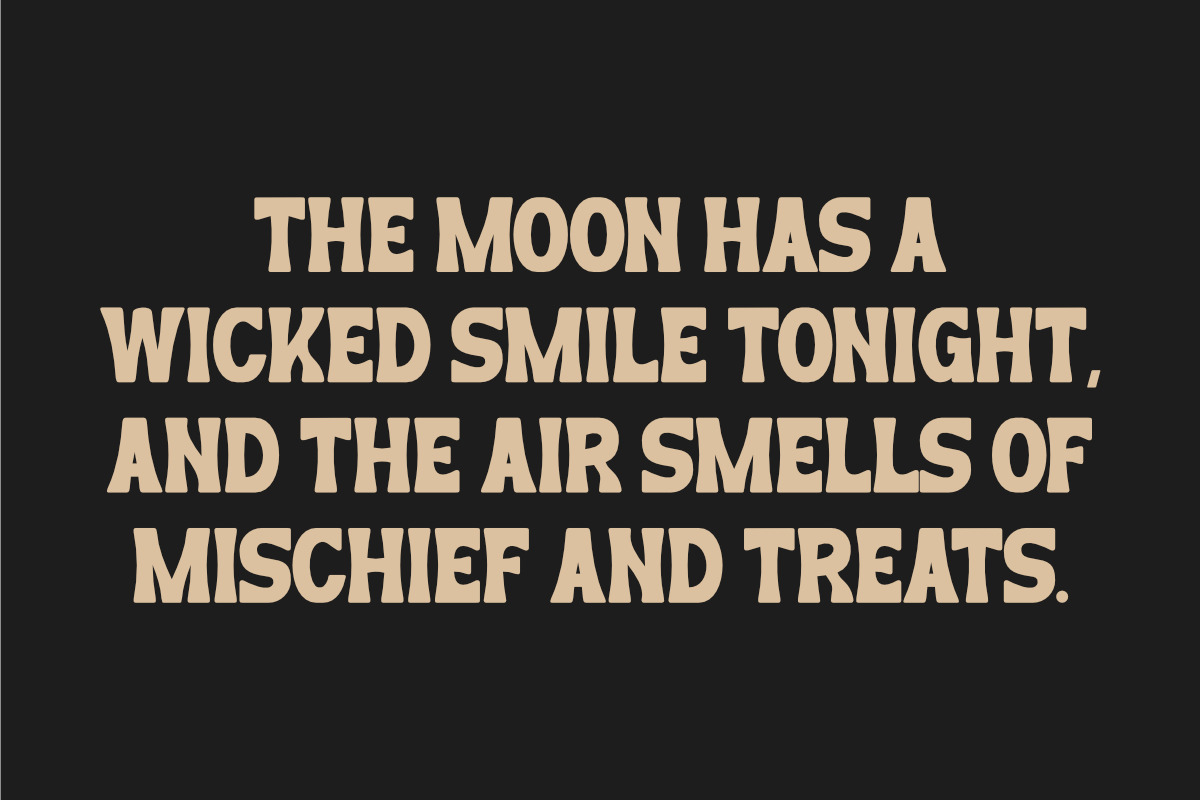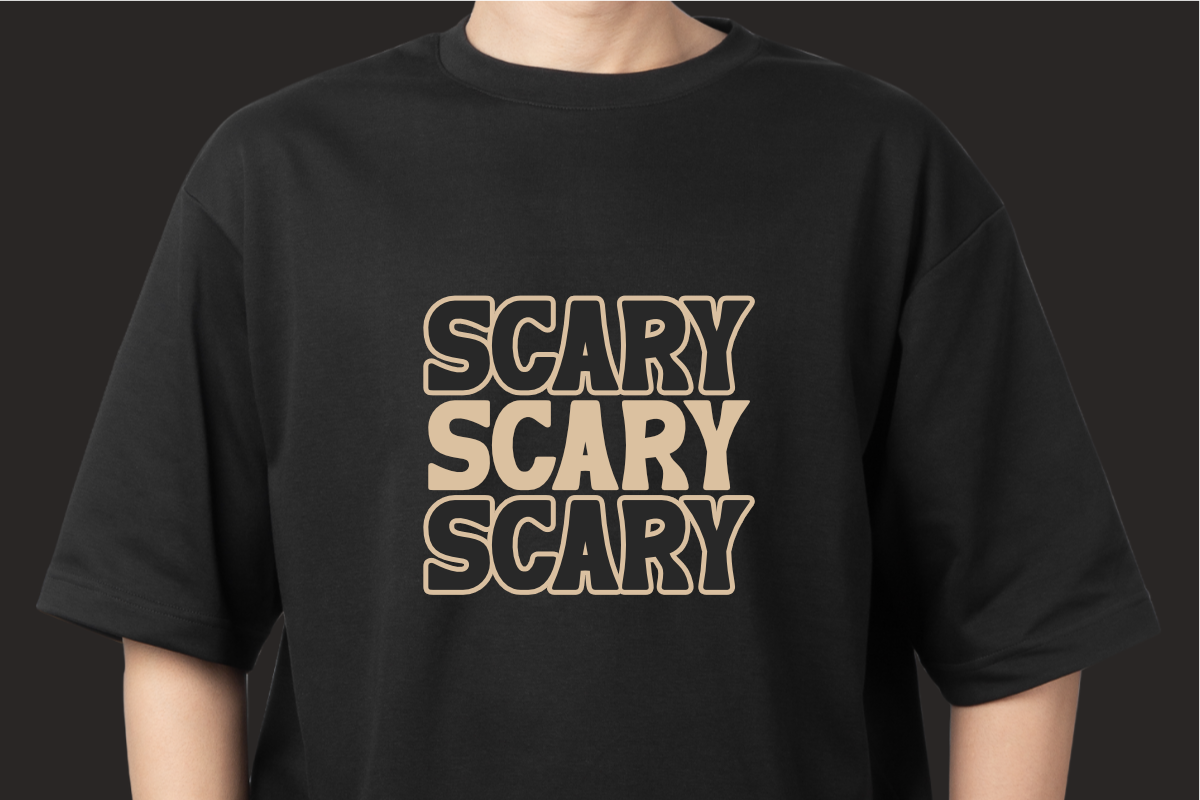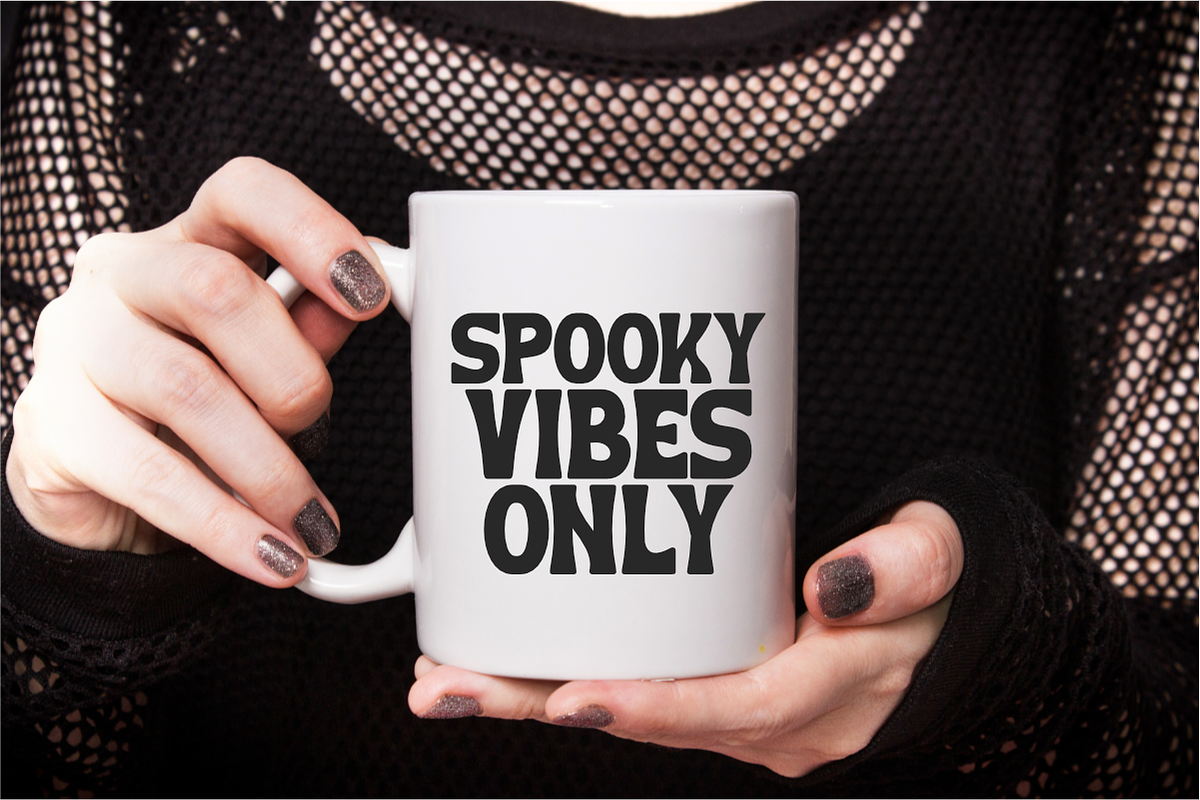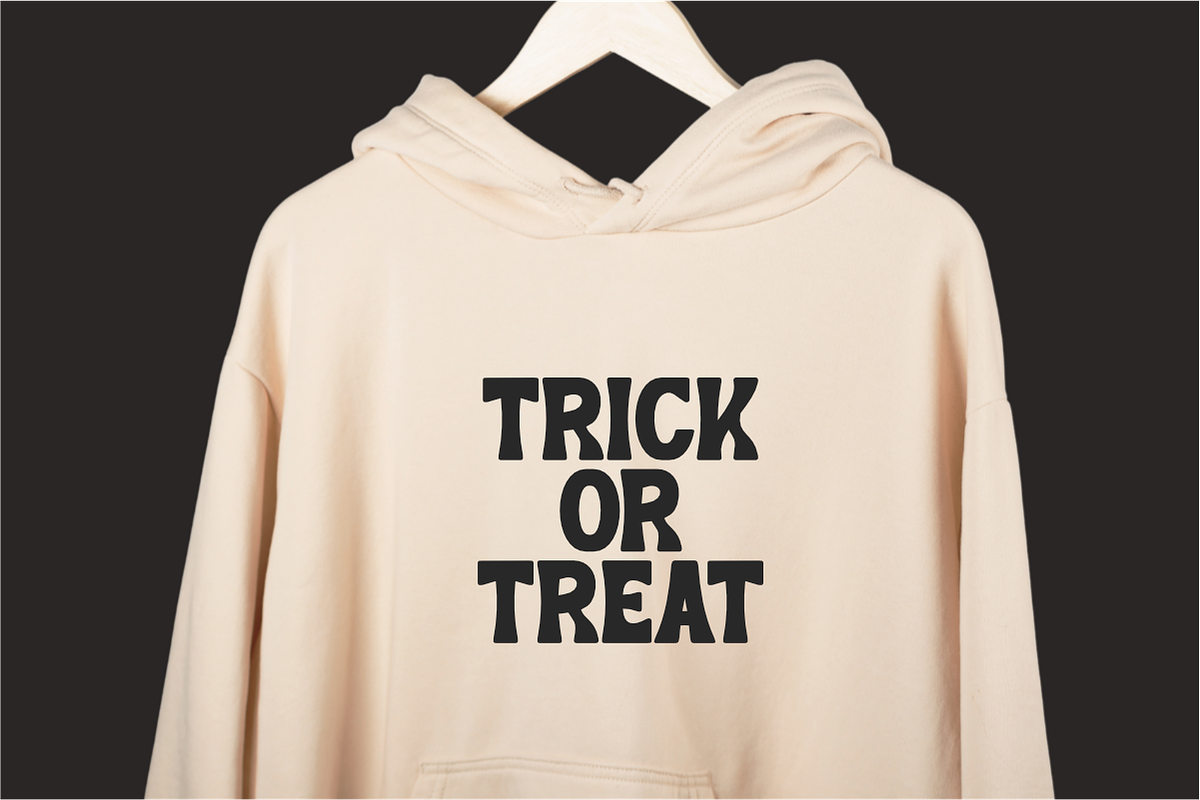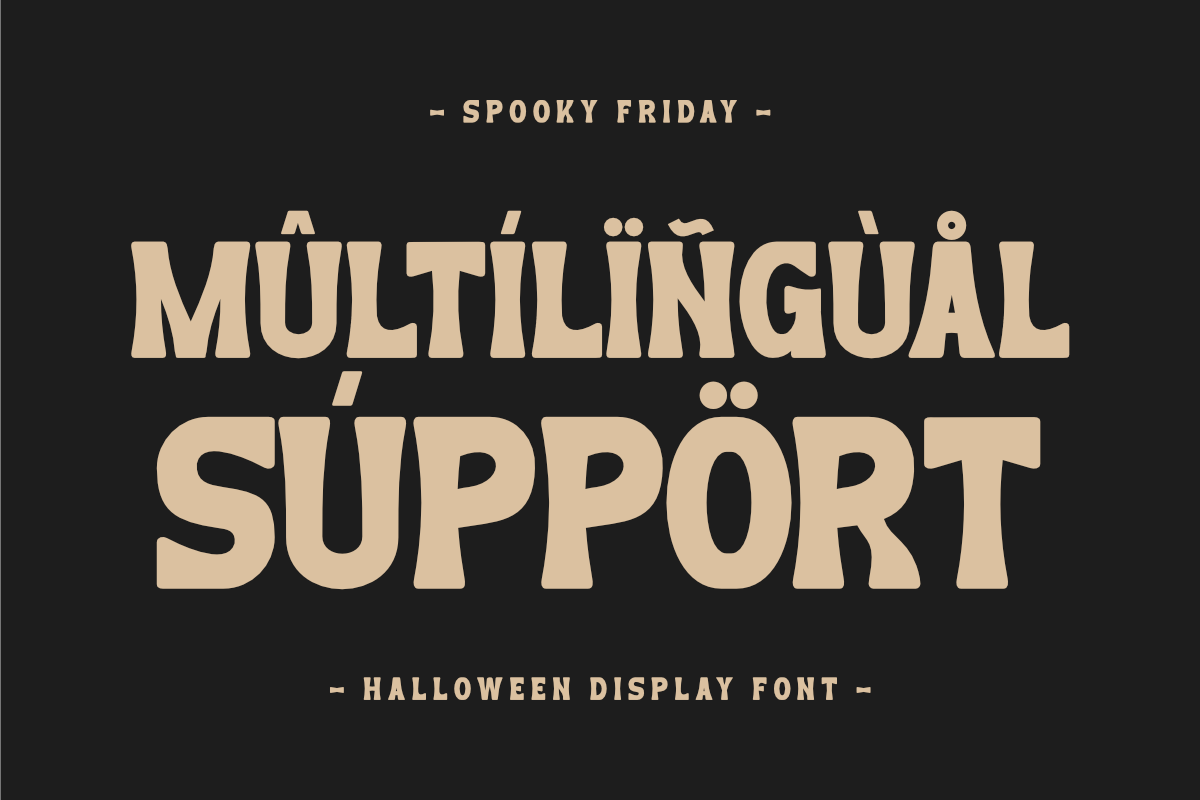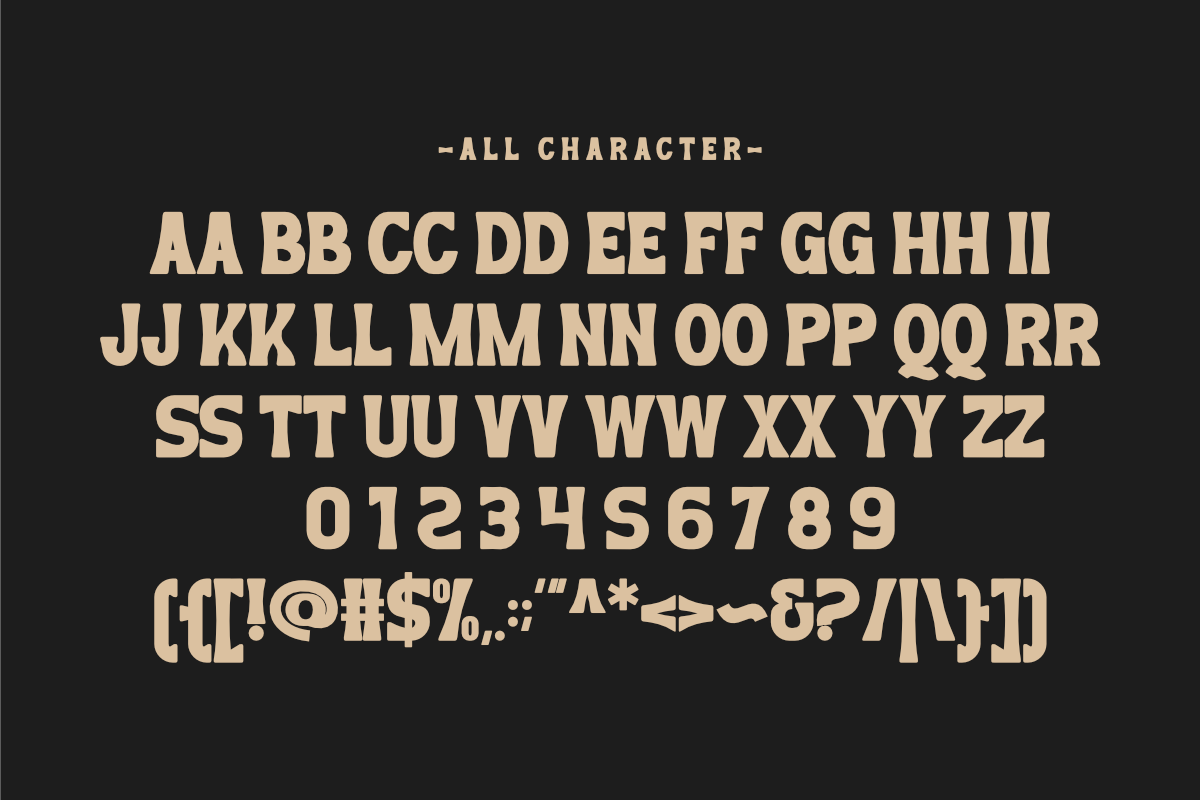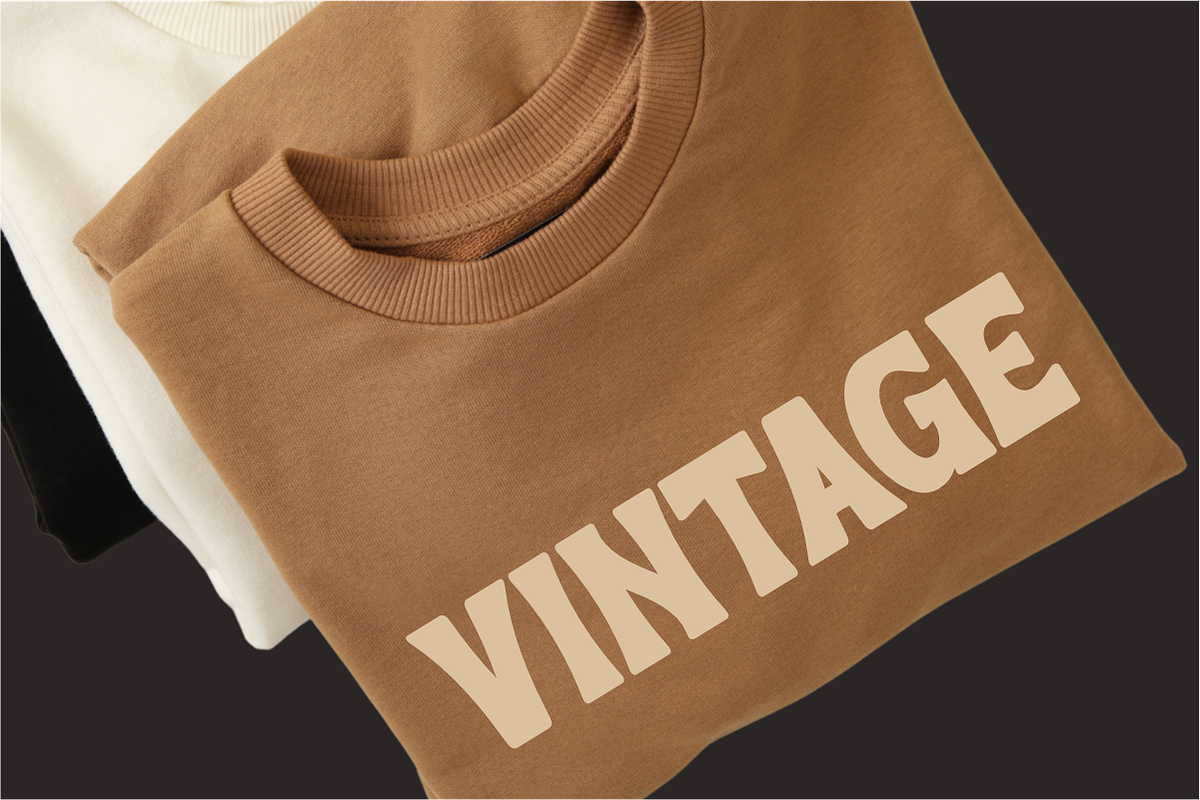
Spooky Friday - Halloween Display
Spooky Friday is a bold display font perfect for T-shirt designs, POD, DIY, and laser cuts. Featuring rounded letterforms and a playful yet slightly eerie design, this font adds a spooky touch to your creative projects. Ideal for crafting, branding, Halloween decorations, party invitations, and more.